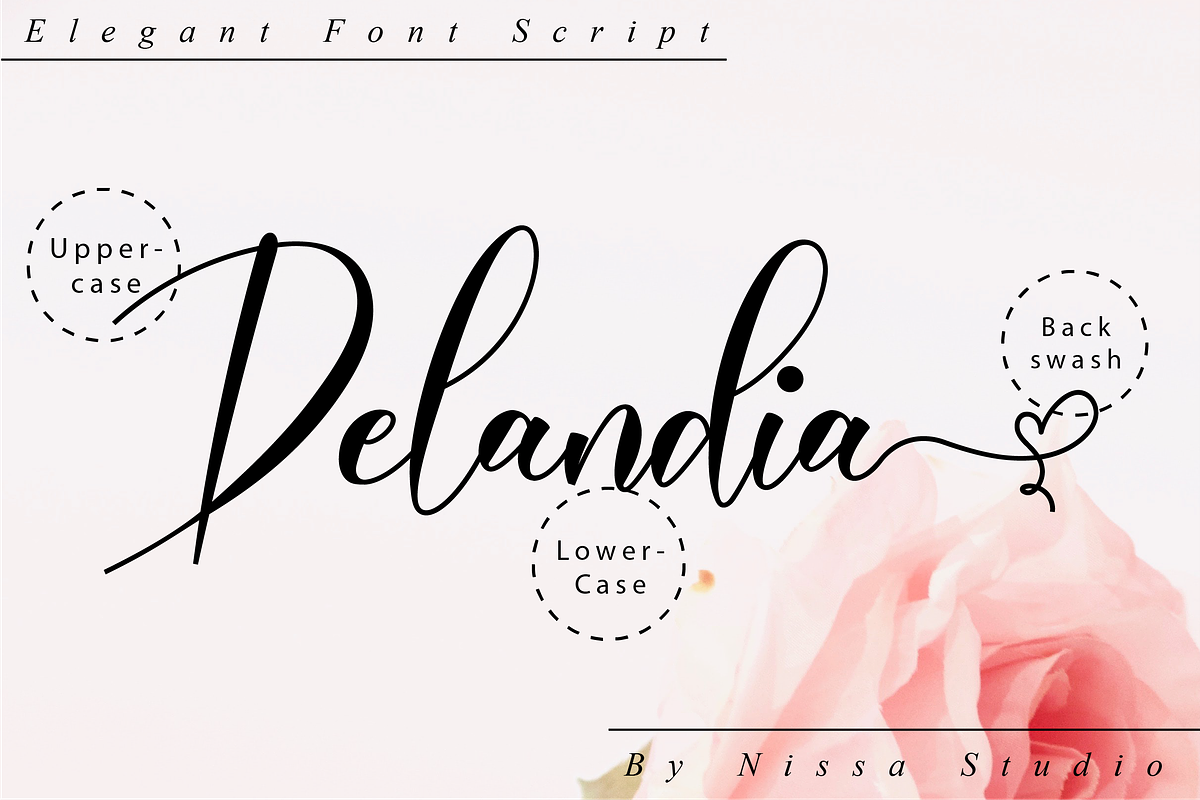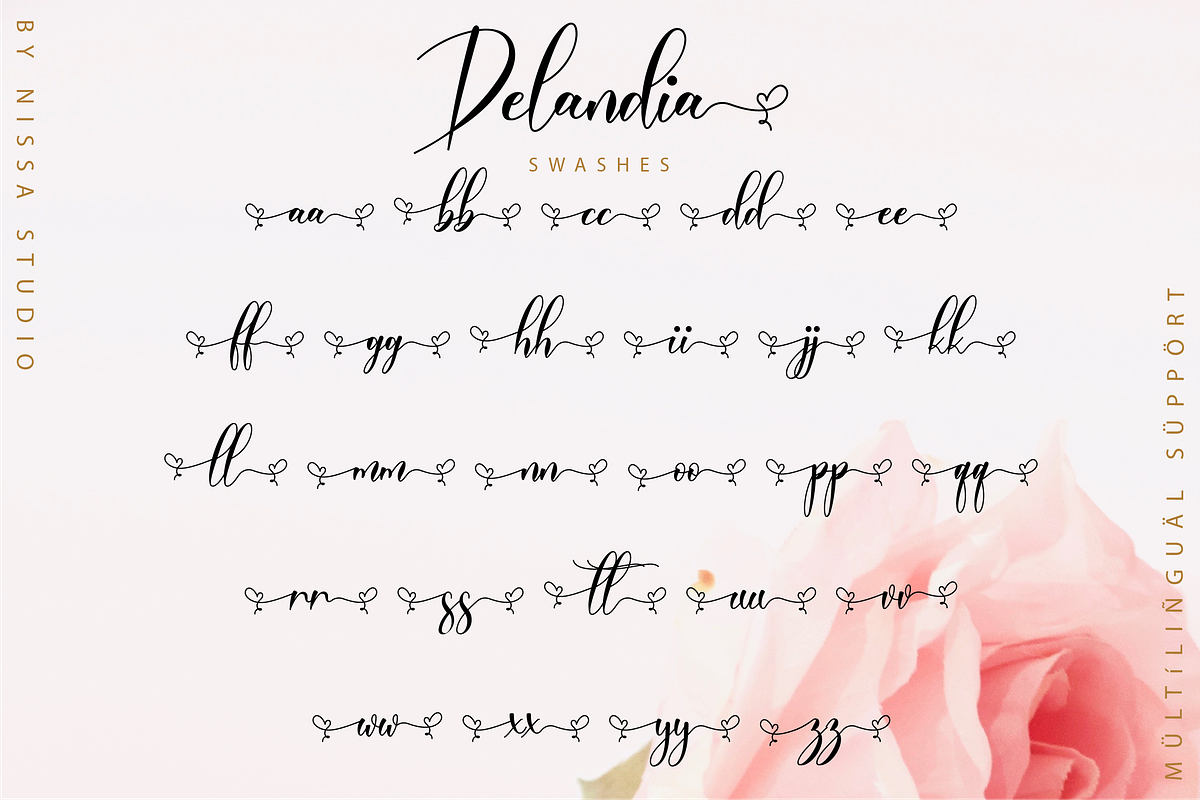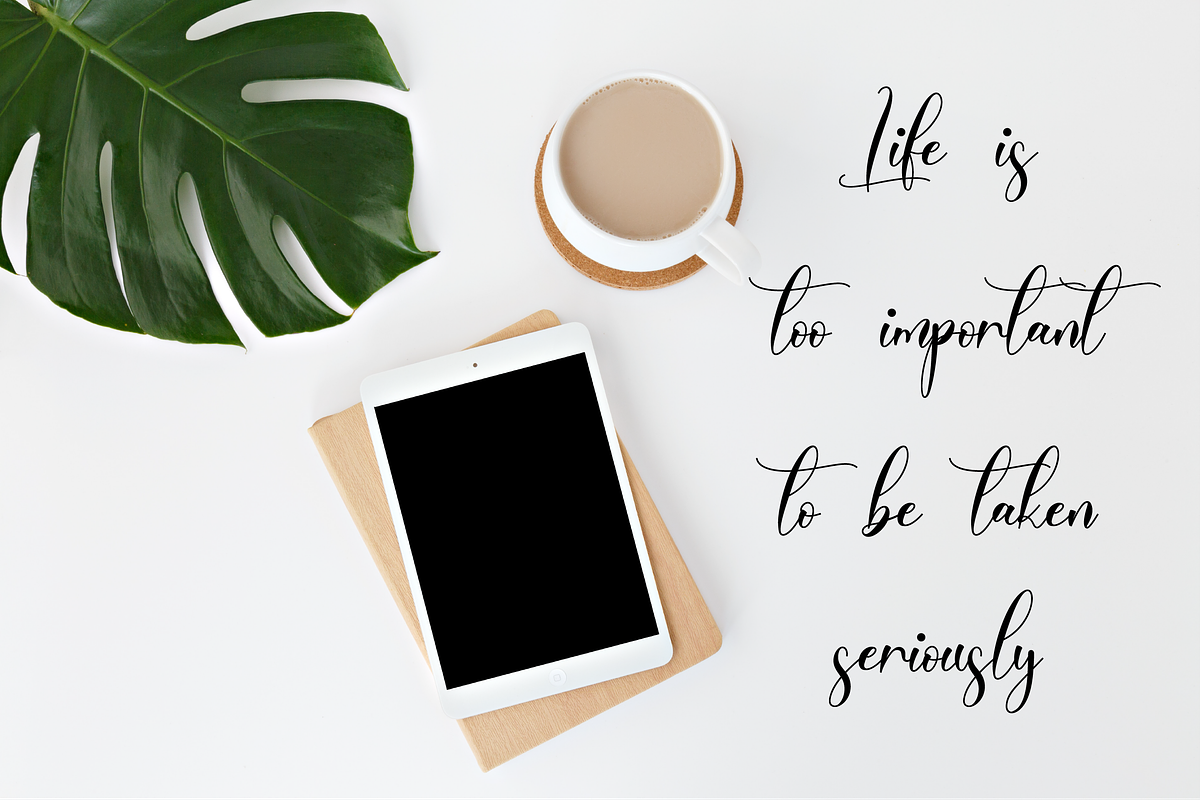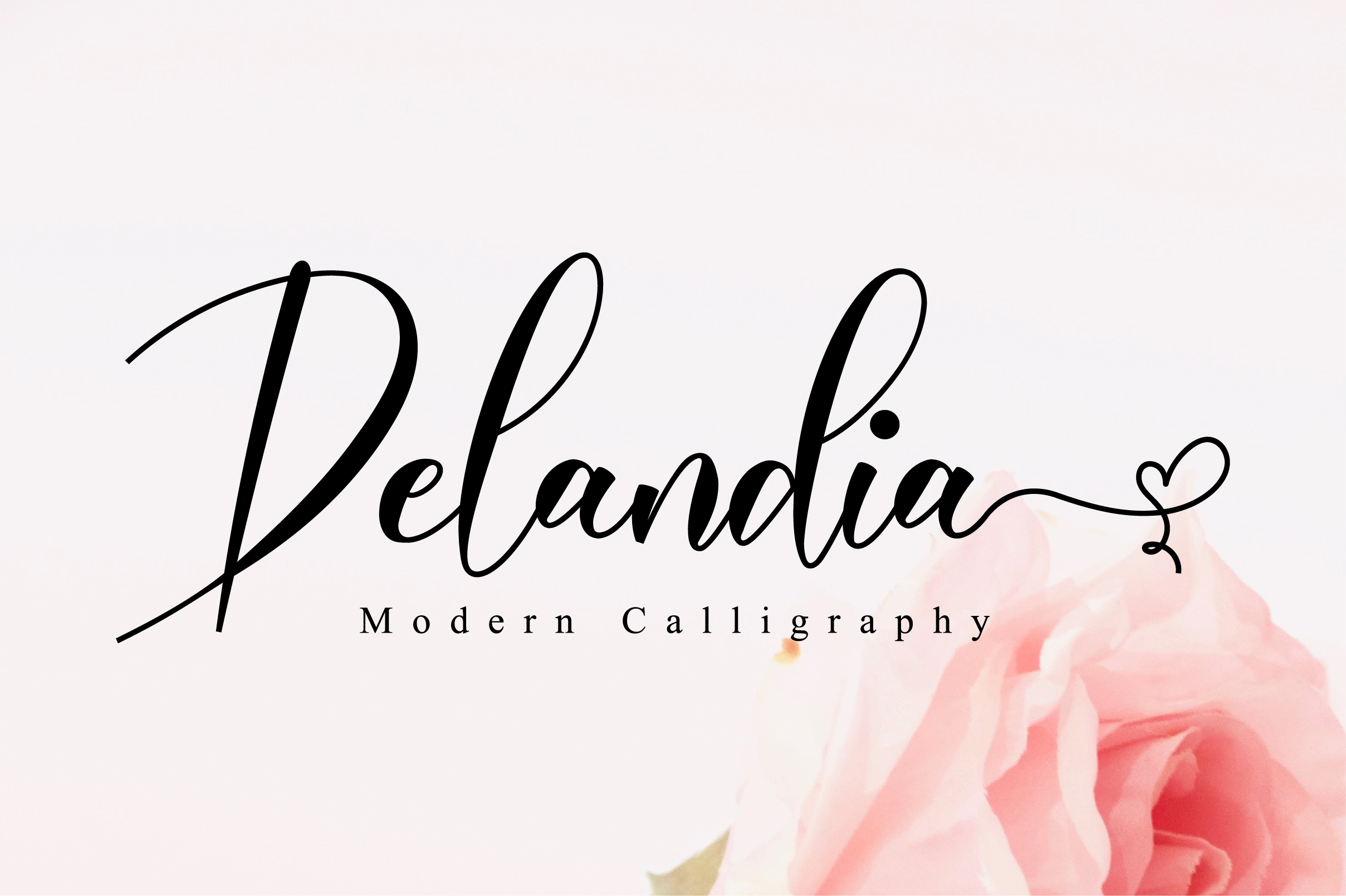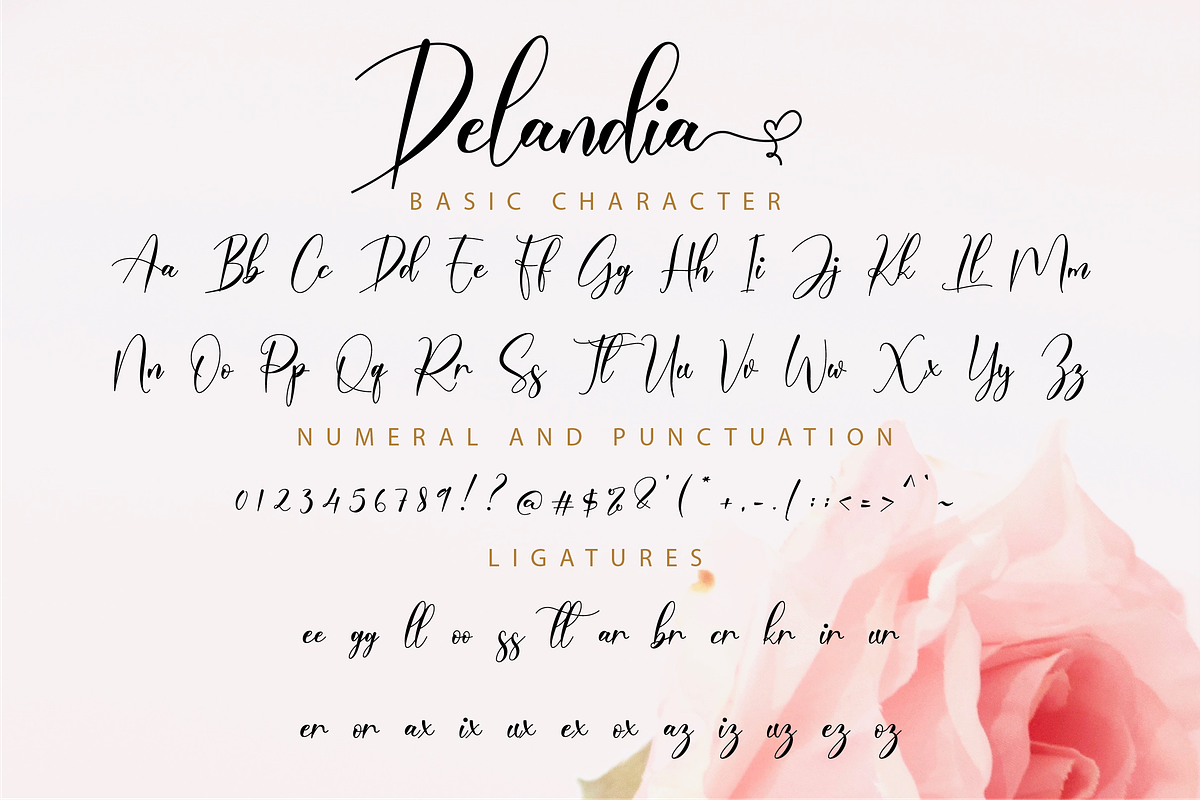
Delandia - A Lovely Script Font
Delandia is a beautiful script font. Its classy and elegant look makes it perfect for logos, branding, invitations, stationary, wedding designs and social media posts.
Each Font Has:
- Modern Handwritten Font
- Beautiful Swash (Ending tail)
- Beautiful Titling (Beginning tail)
- Special Ligatures